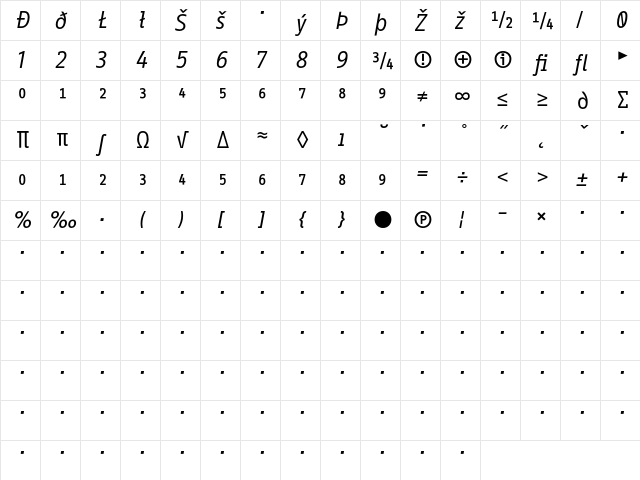
InfoOffice ItalicExpert
Design Context for InfoOffice Typeface
InfoOffice is a composed and adaptable typeface that performs quietly and consistently across a wide range of design contexts. The dynamic lean of this cut emphasises speed and emphasis in any layout.